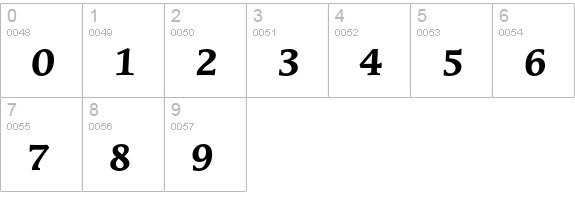
Mirarae Bold Font Details
Mirarae Bold is a strong, high-contrast variant in the Mirarae typeface family \xE2\x80\x94 well suited to headlines, attention-grabbing titles, and strong calls-to-action.
Mirarae Bold is a striking and modern font that exudes confidence and style. With its bold and impactful design, Mirarae Bold is perfect for making a statement in any project. The strong lines and clean shapes of this font make it versatile and easy to read, making it ideal for a wide range of design applications. What sets Mirarae Bold apart is not just its boldness, but also its versatility. Whether you're designing a poster, a logo, or a website, Mirarae Bold will make your text pop and stand out. Its sleek and contemporary look will give your project a professional and polished finish. And the best part? Mirarae Bold is free to download at FontsMarket.com. So you can add this stylish font to your collection without breaking the bank. Don't miss out on the opportunity to elevate your designs with Mirarae Bold - download it today and see the difference it can make!